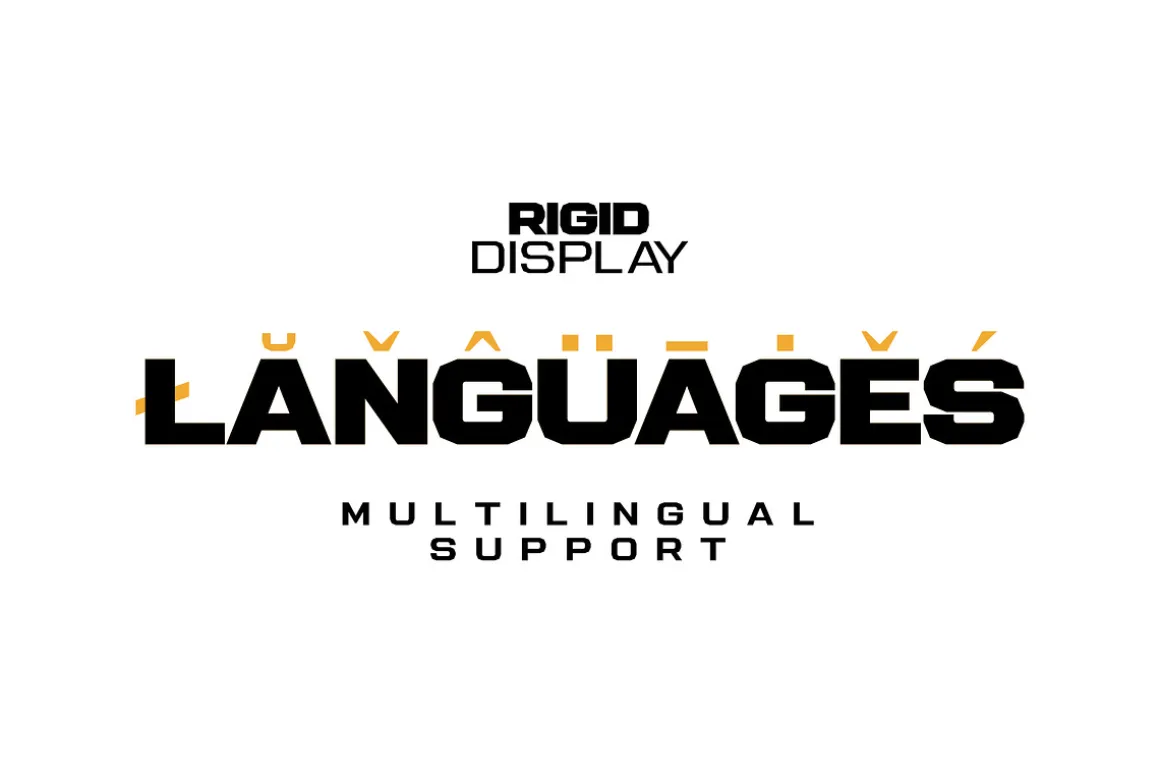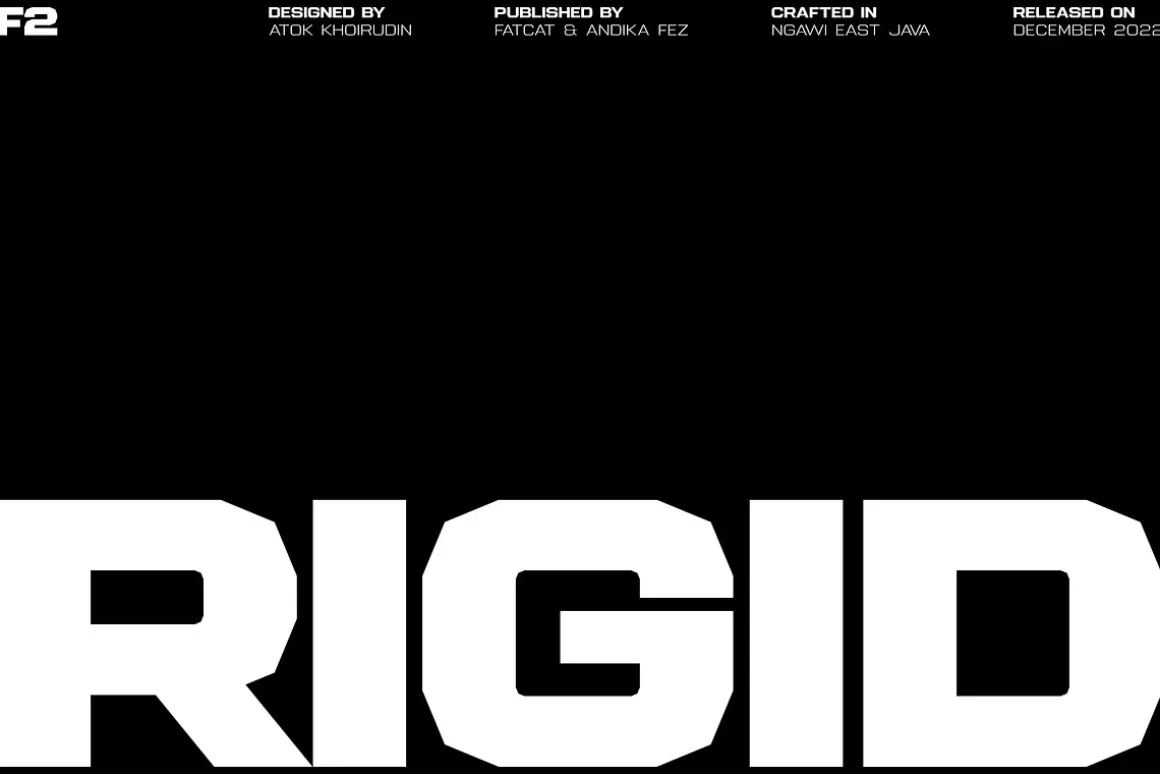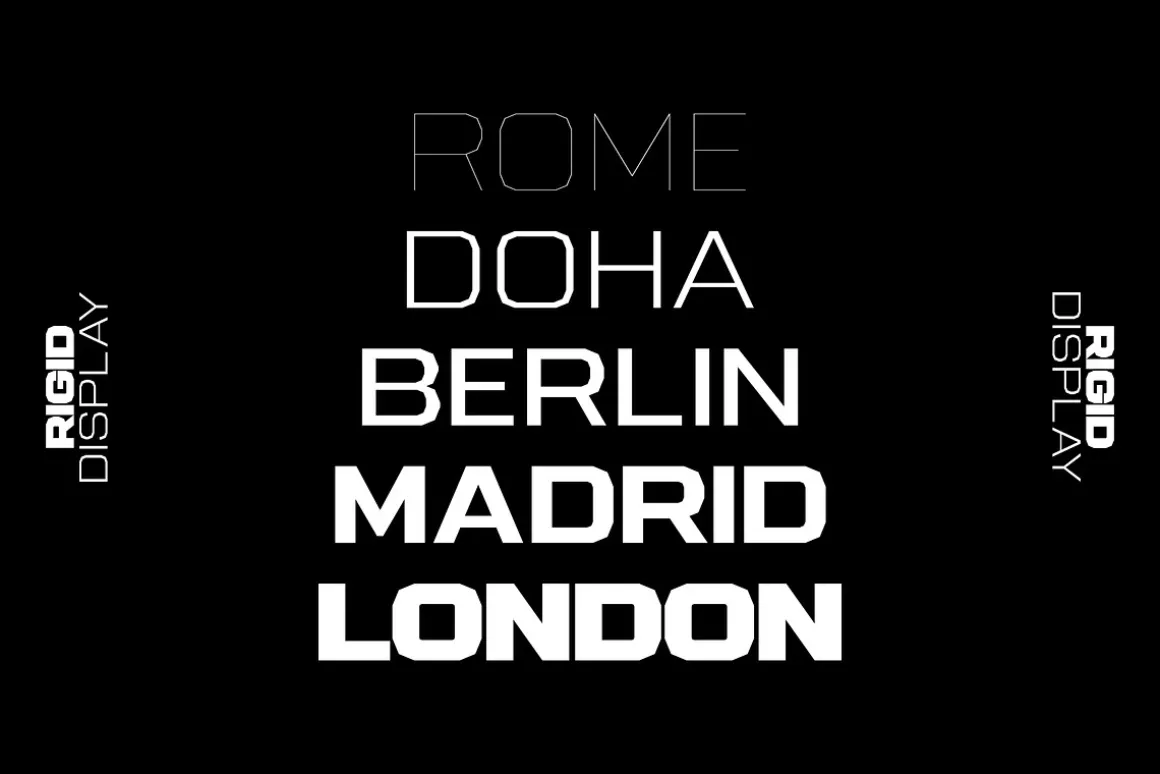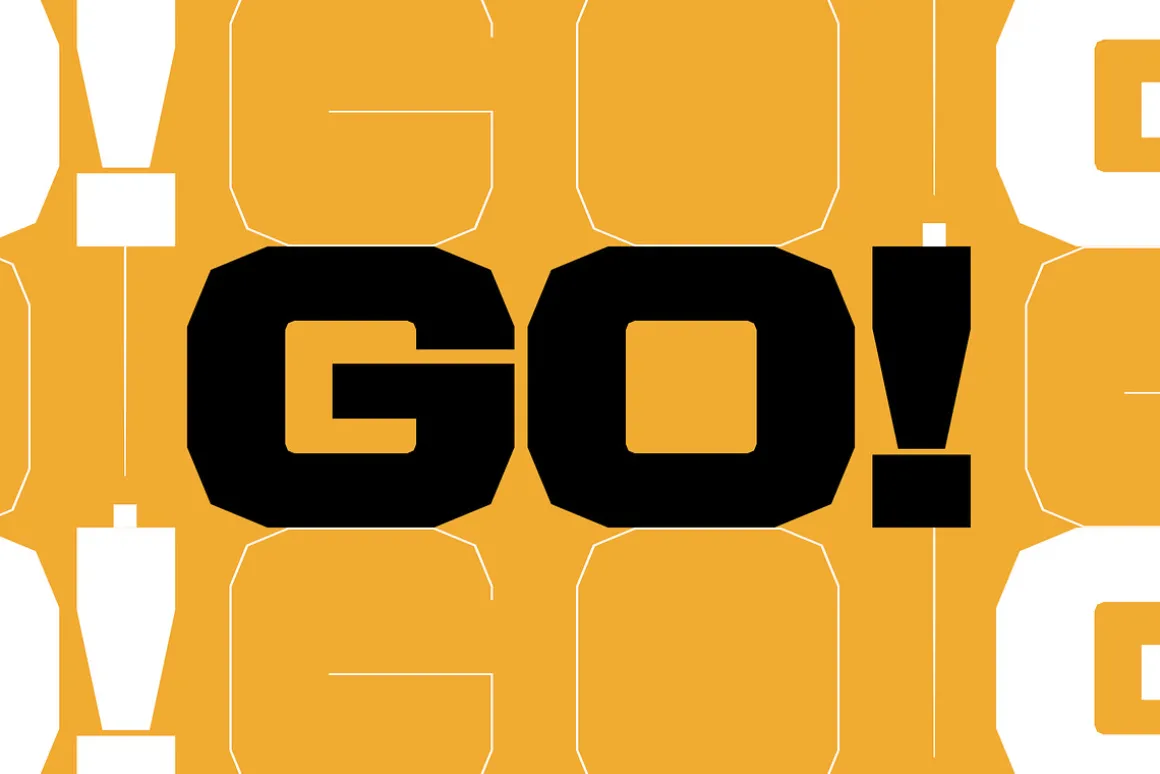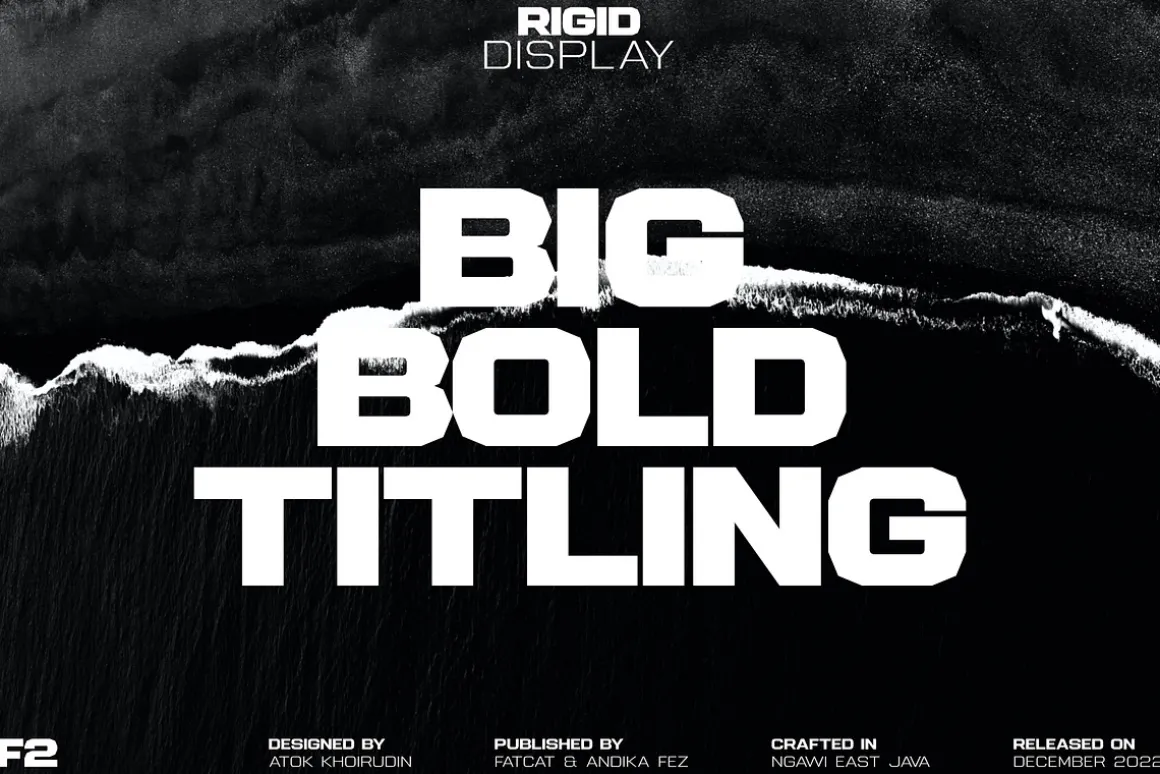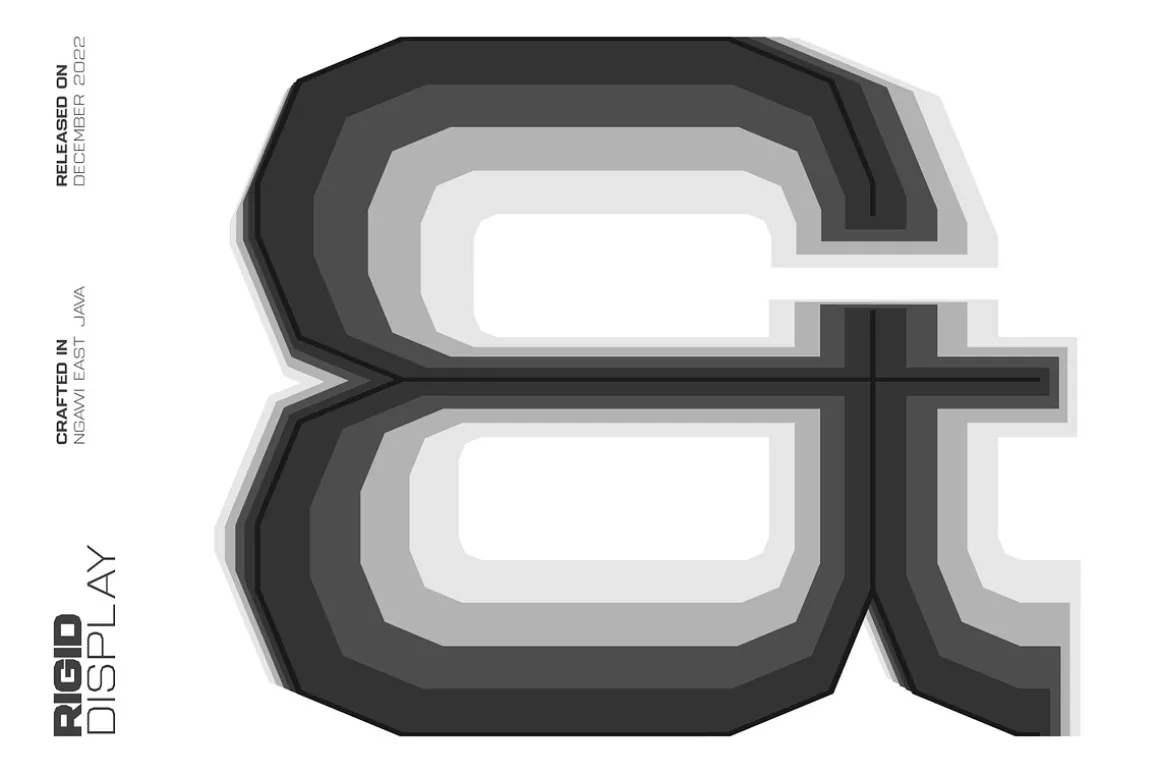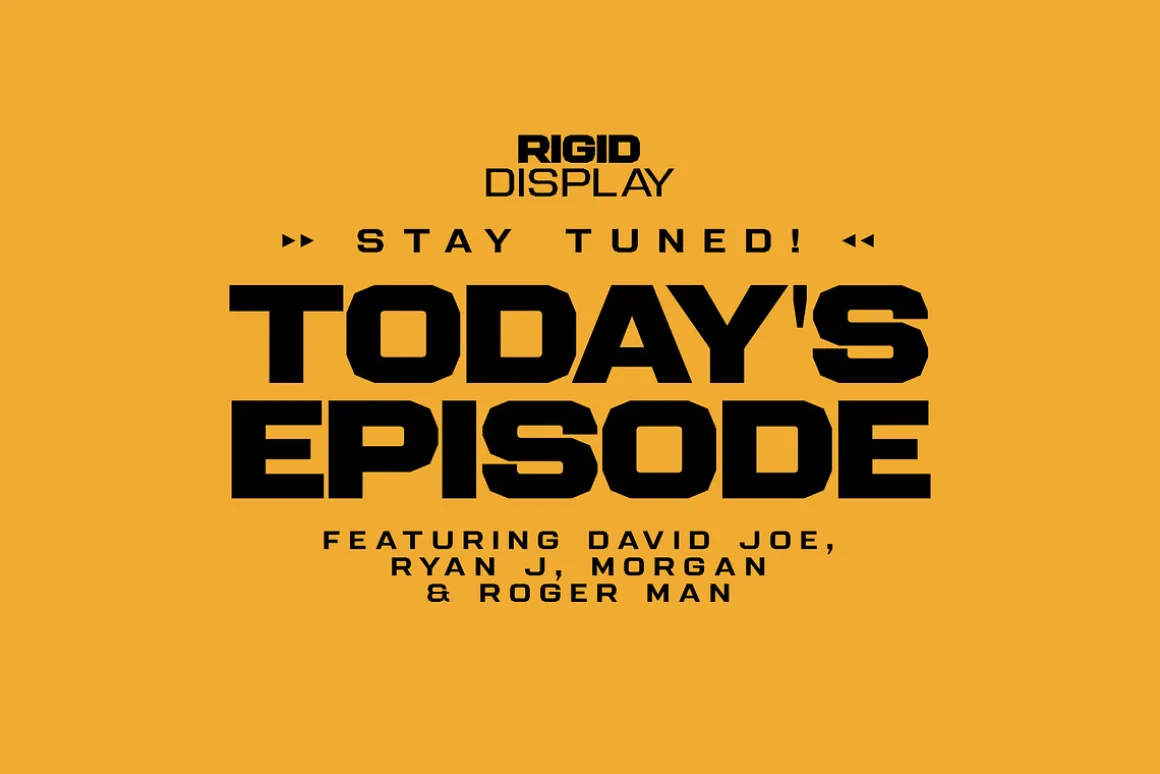
Rigid Display is a modern vintage logo tech font family built for bold ideas and standout branding. With its clean and geometric forms, Rigid Display fuses futuristic tech with retro elegance. It’s the perfect balance of minimal and expressive—made for designers, brands, and creatives who want their visuals to feel both cutting-edge and timeless.
Whether you’re working on a high-impact engineering concept, a stylish fashion label, or an innovative technology brand, Rigid Display delivers a bold, technical edge with just the right amount of vintage flair. From sharp logos to luxurious branding, this sans serif font family offers flexibility and character for every project.
Use Rigid Display to elevate your design with confidence—it’s where innovation meets heritage, and where bold modern design meets nostalgic attitude.